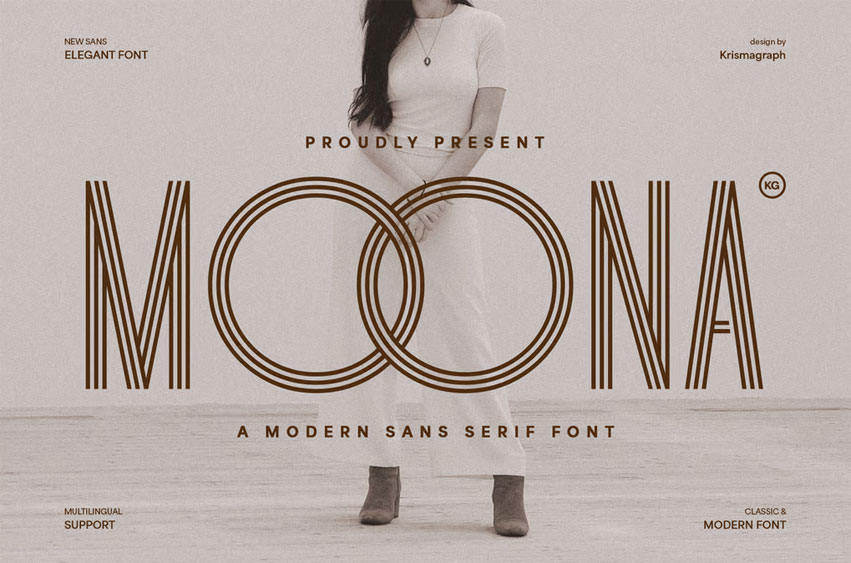
Moona Font is a modern display font with a clean, elegant design that blends timeless sophistication with contemporary style. Featuring unique double-line strokes and sleek geometric construction, Moona stands out as a refined choice for designers seeking clarity and character in their typography.
Perfect for branding, fashion editorials, logos, posters, social media graphics, and high-end minimalist design projects, Moona is crafted to bring a stylish, professional touch to any visual composition.
This font includes full multilingual support, making it ideal for global projects and diverse creative needs. Whether you’re designing a luxury brand identity or a modern magazine layout, Moona offers the flexibility and finesse your work deserves.
• Modern & Elegant Sans Serif Style
• Unique double-line letterforms
• Classic meets contemporary aesthetic
• Multilingual support included
• Perfect for fashion, branding, editorial, and minimalist design